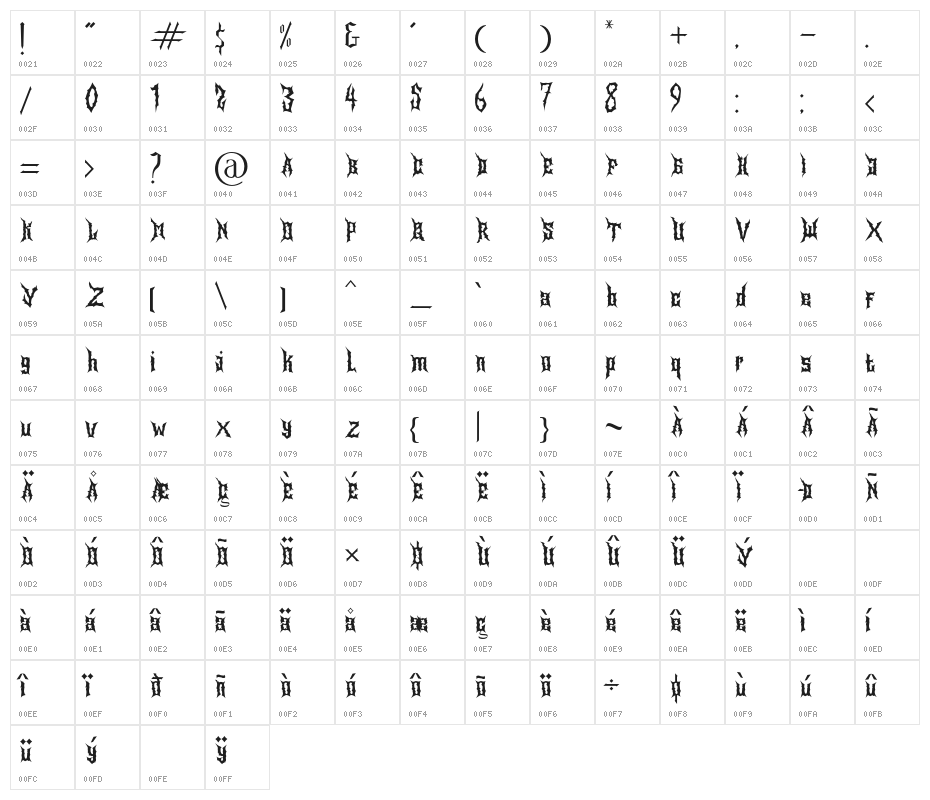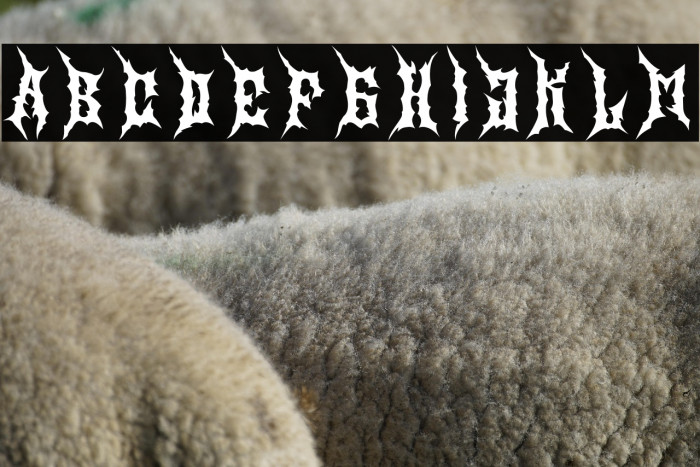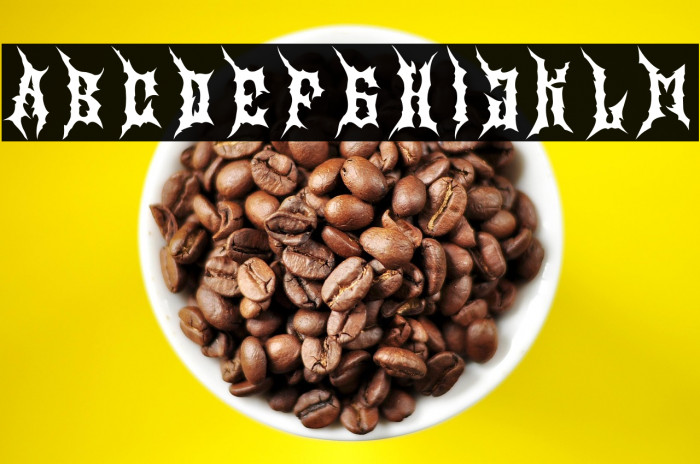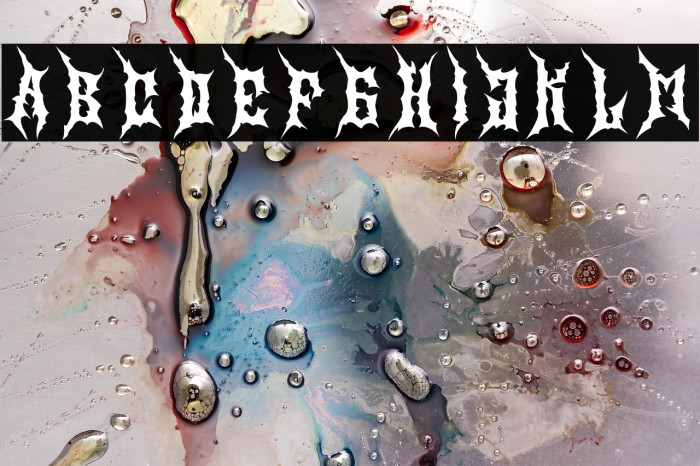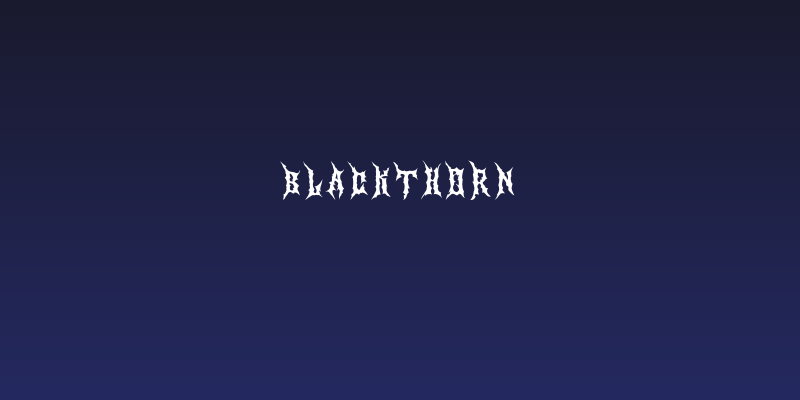
Blackthorn Font
Blackthorn Description
This font features a striking and aggressive design, characterized by sharp, thorn-like edges and a bold presence. Each letter is crafted with intricate details that resemble jagged spikes, giving the font a fierce and edgy appearance. The uppercase and lowercase letters maintain a consistent style, with the uppercase being slightly more pronounced. Numbers and special characters are designed to match the overall thorny aesthetic, making them stand out with their unique shapes. The font's distinct style is reminiscent of gothic or heavy metal themes, making it ideal for projects that require a bold and dramatic impact.
| Overall Style | Gothic, Edgy, Dramatic |
| Proposed Projects | Album covers, event posters, video game titles, branding for edgy or alternative products. |